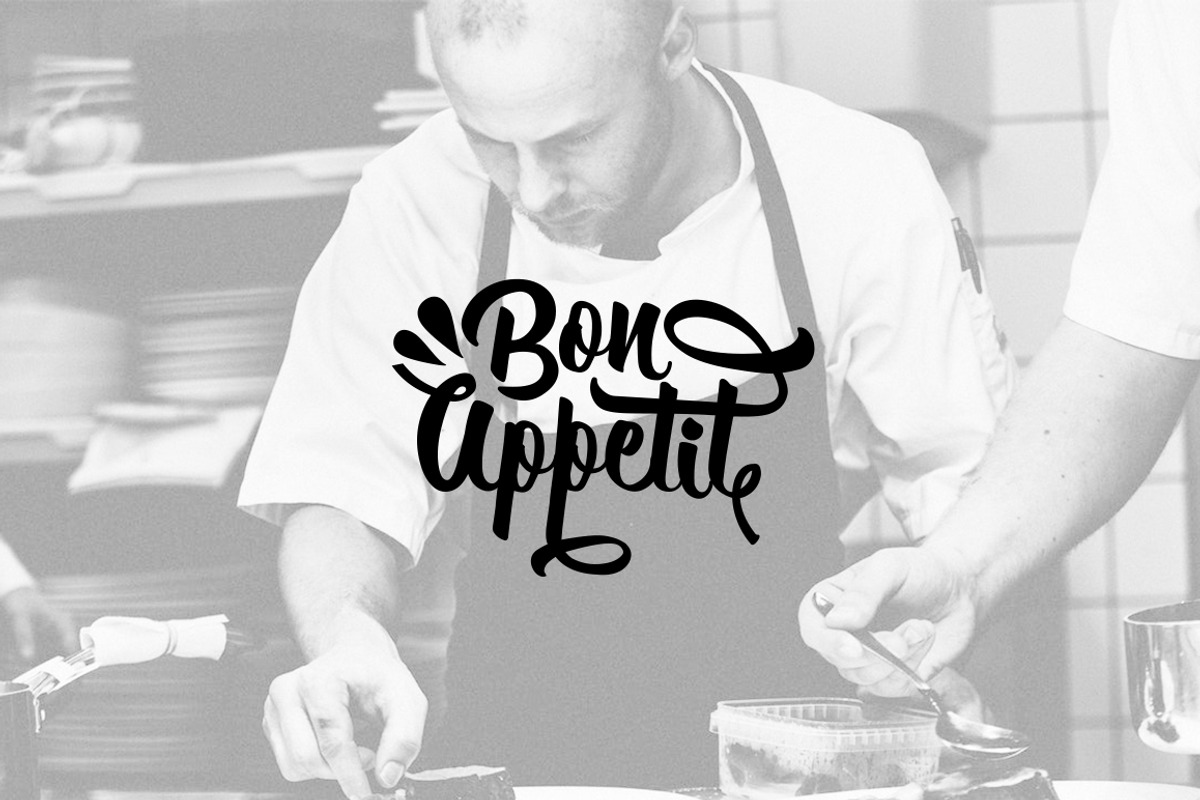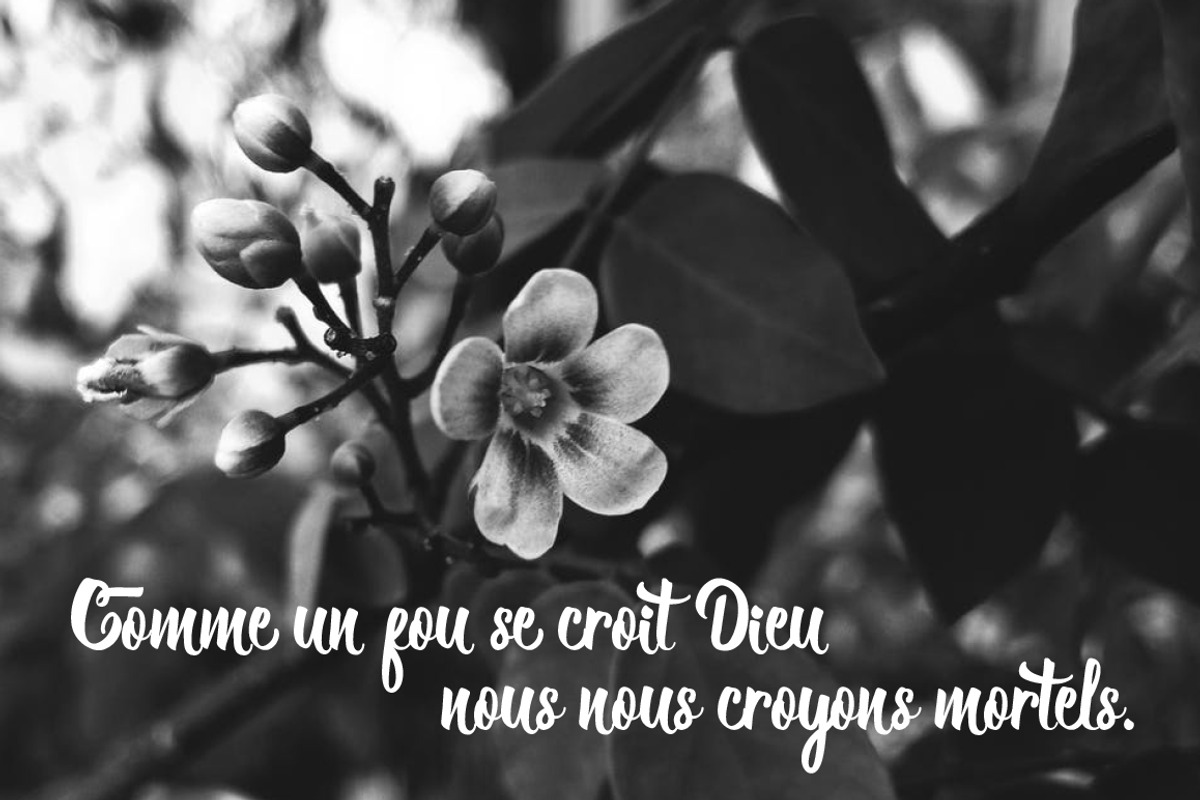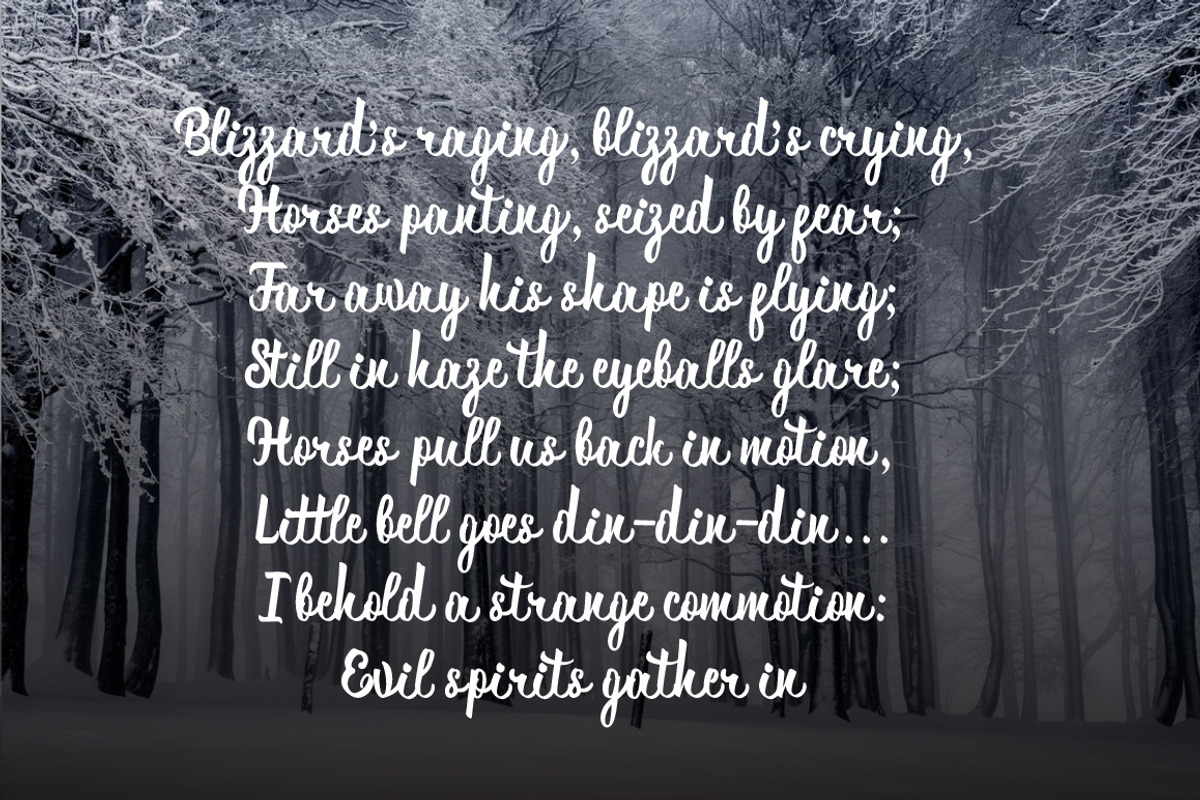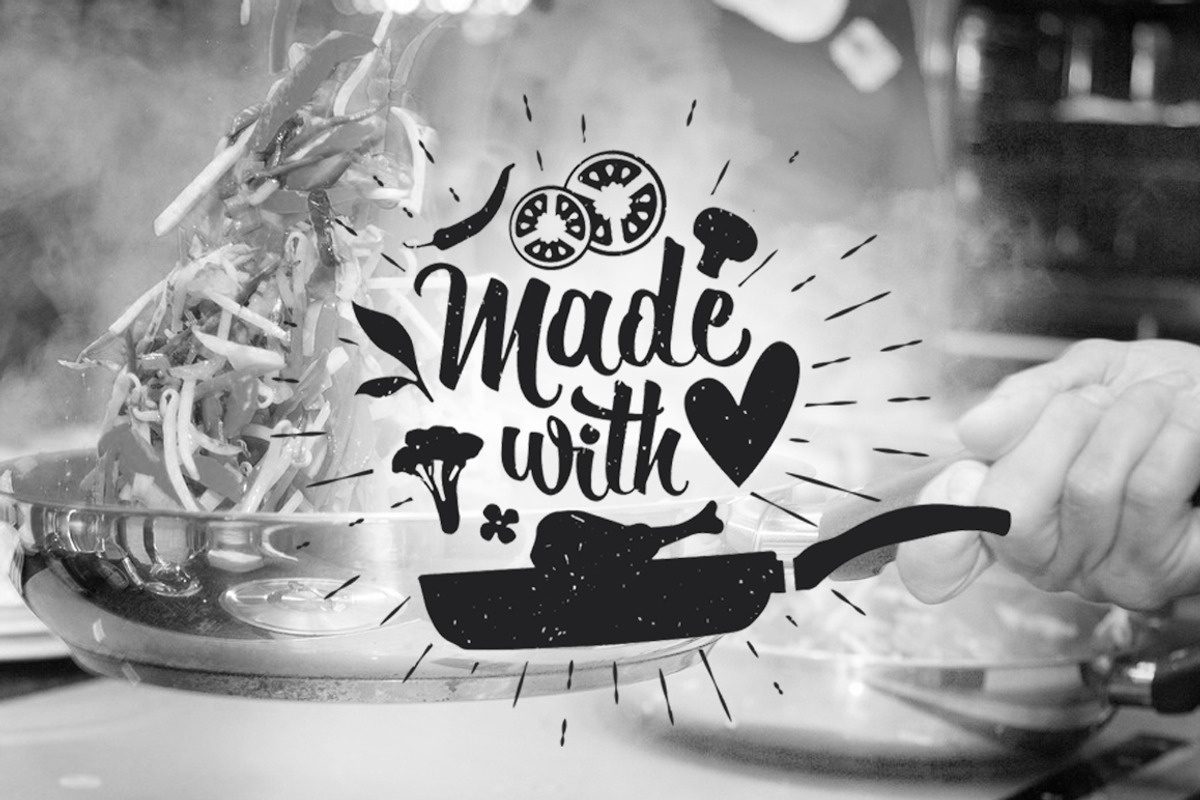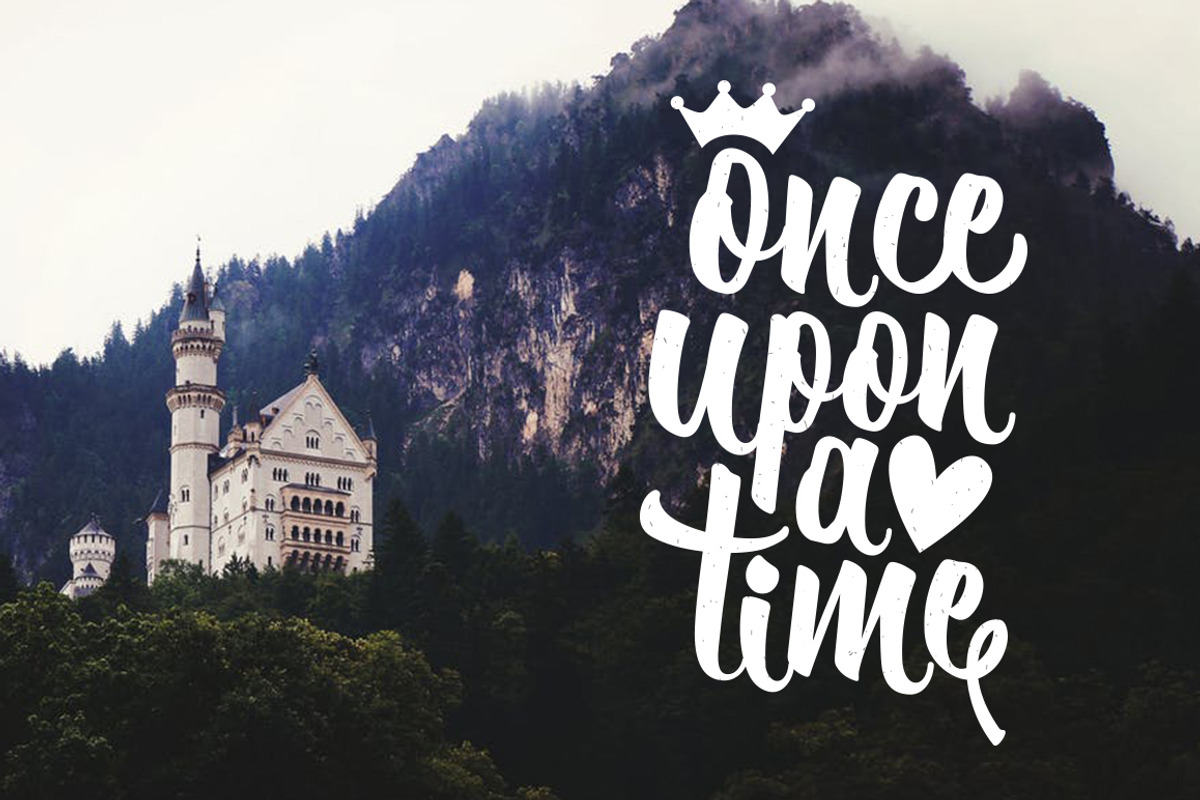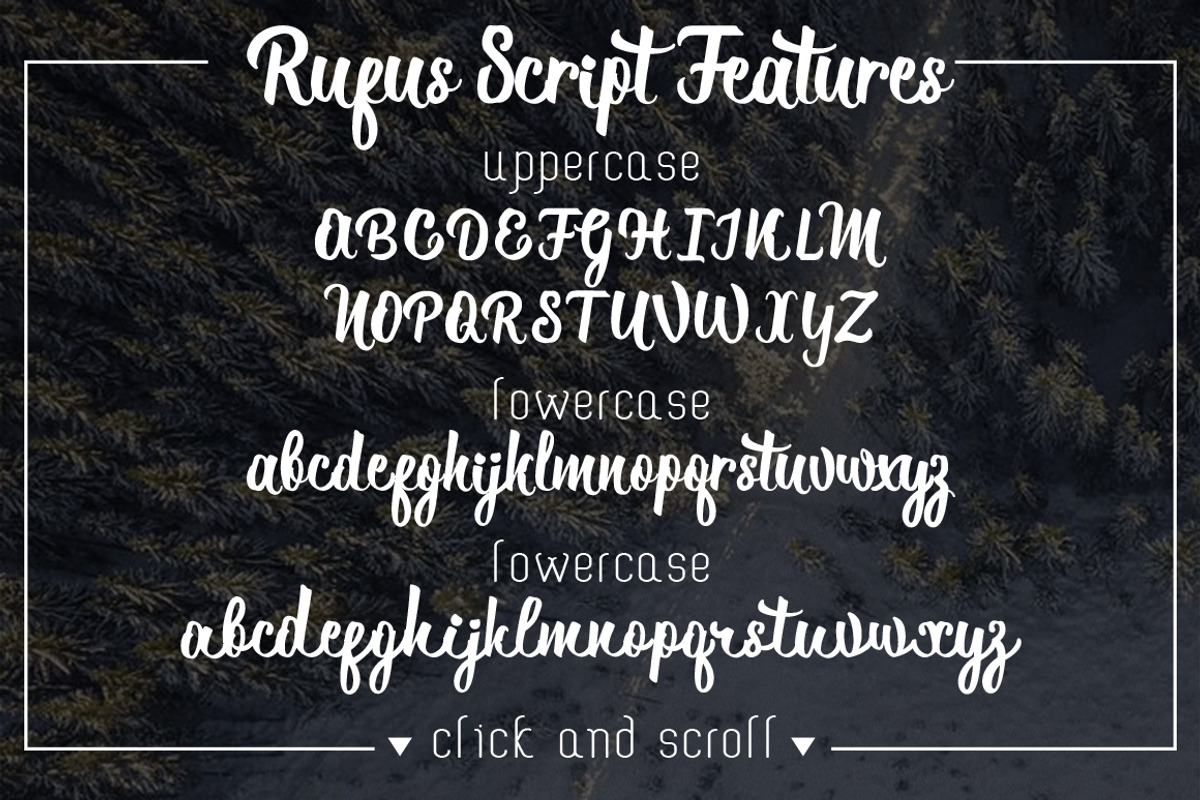
Rufus Font
Rufus Font by Moloko88 is a font selected for branding, posters, packaging, typography.
- Inspirational vector typography. Bon appetit. Vector calligraphy.
- Inspirational vector typography. Make with love. Vector calligraphy.
- Inspirational vector typography. Once upon a time. Vector calligraphy.
Why Rufus Font is worth a look
Rufus Font by Moloko88 fits naturally into Branding, posters, packaging, typography.